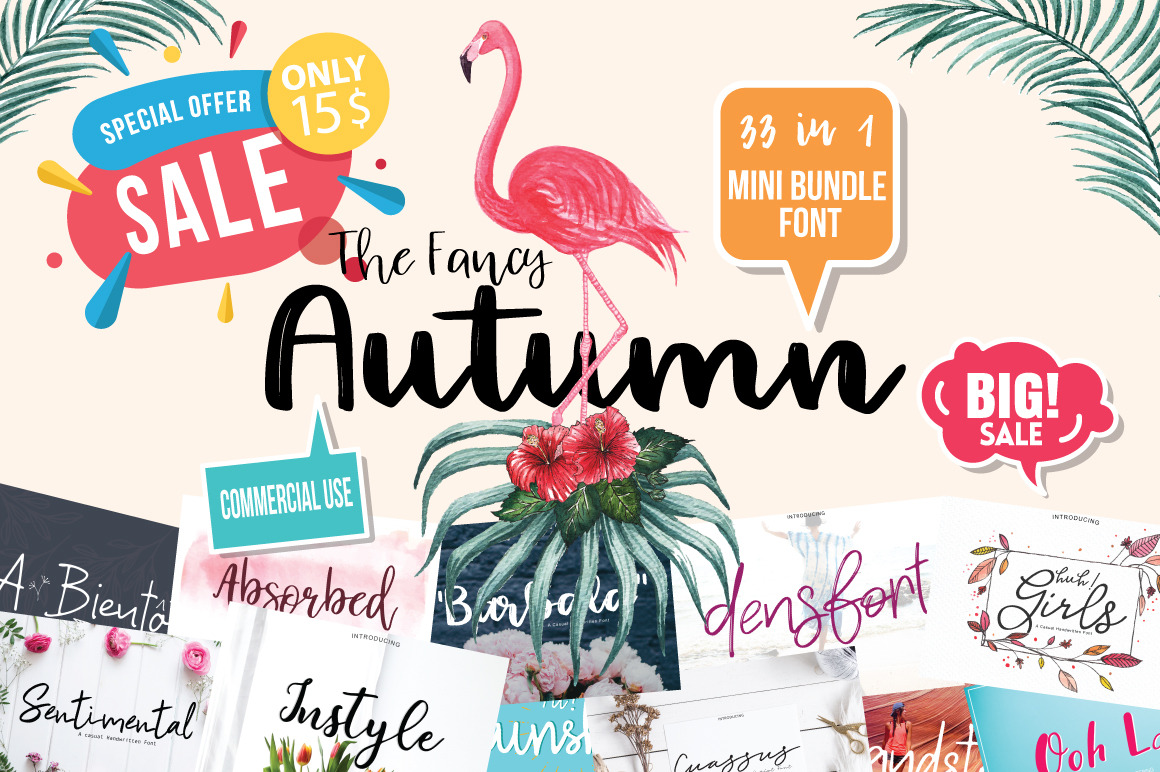
33 The Fancy Autumn Bundle Font
All fonts a perfect for every project, wedding invitation or your blog. Also with their help, you can create a logo or beautiful frame for your home. Or just use for your small business, book covers, stationery and more.